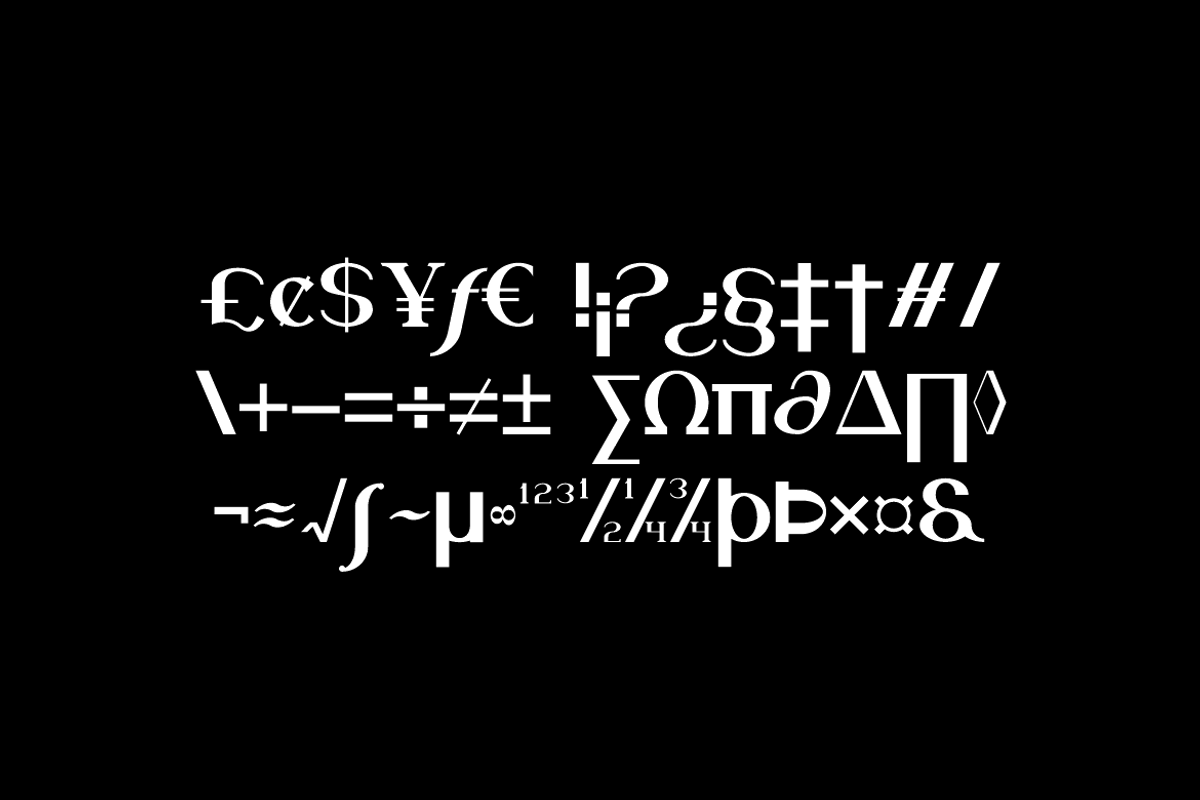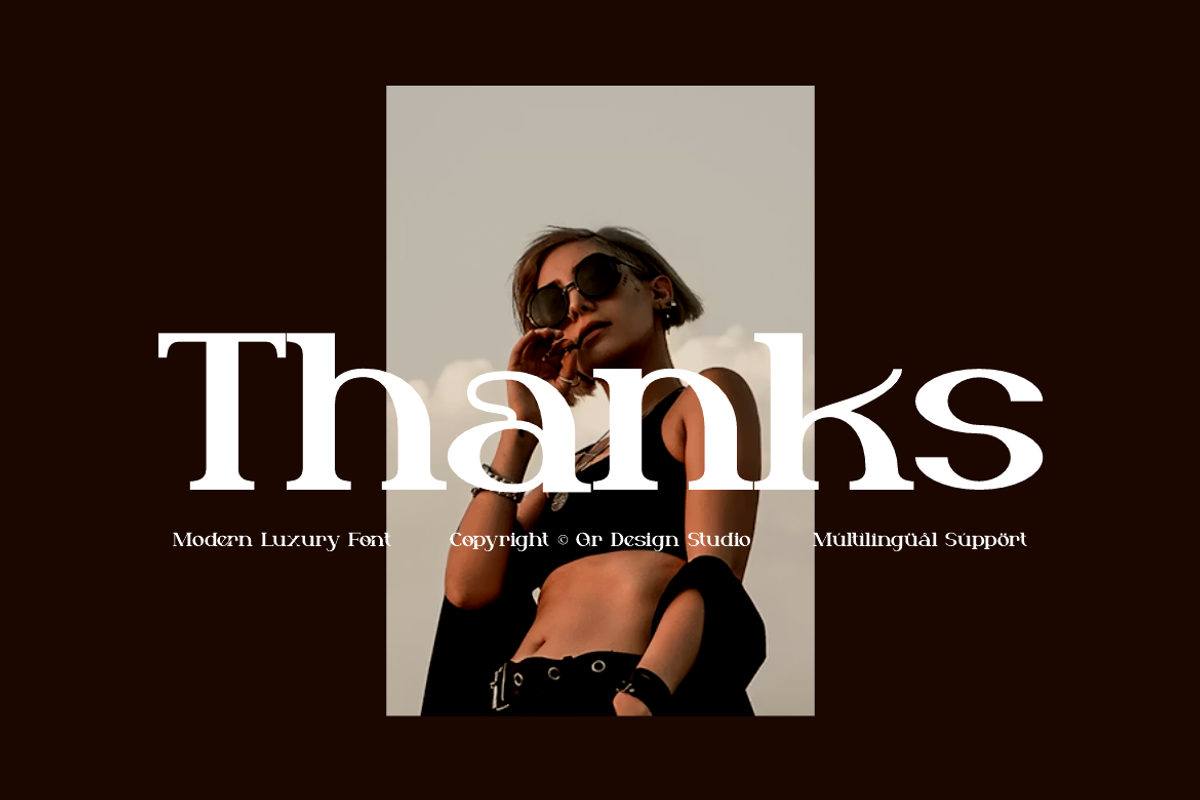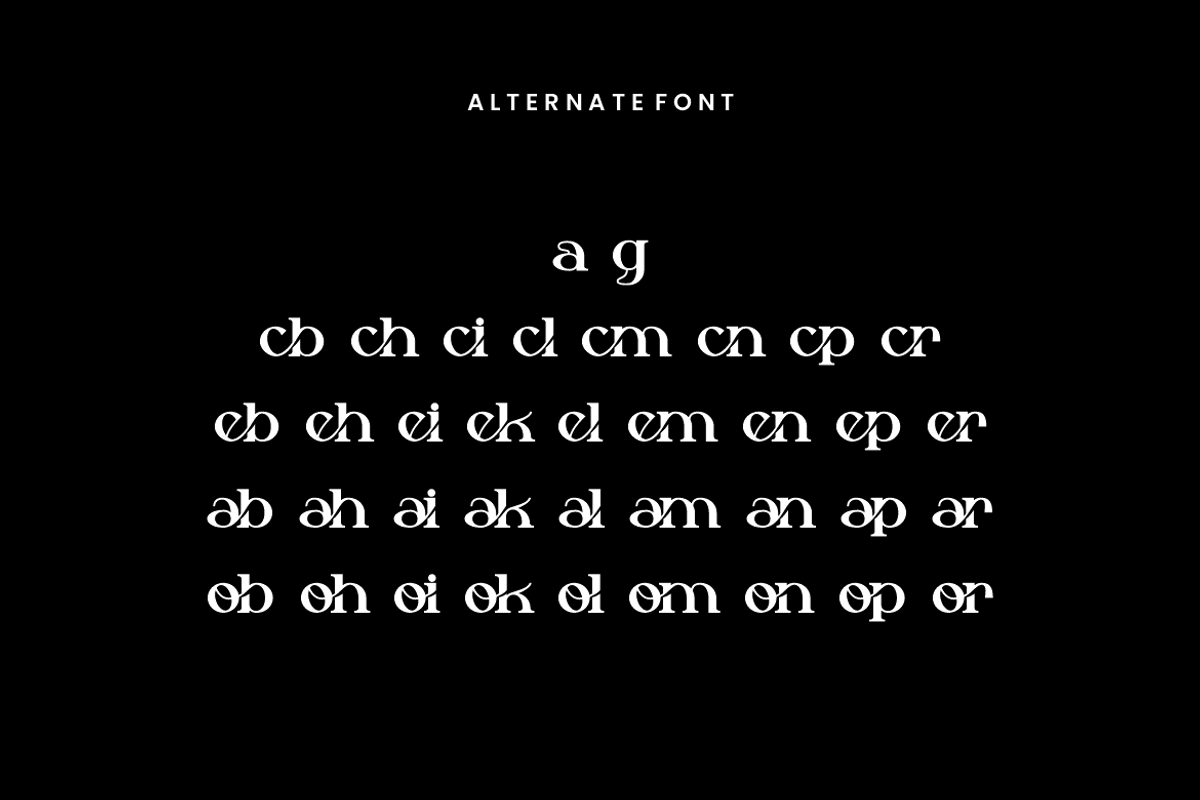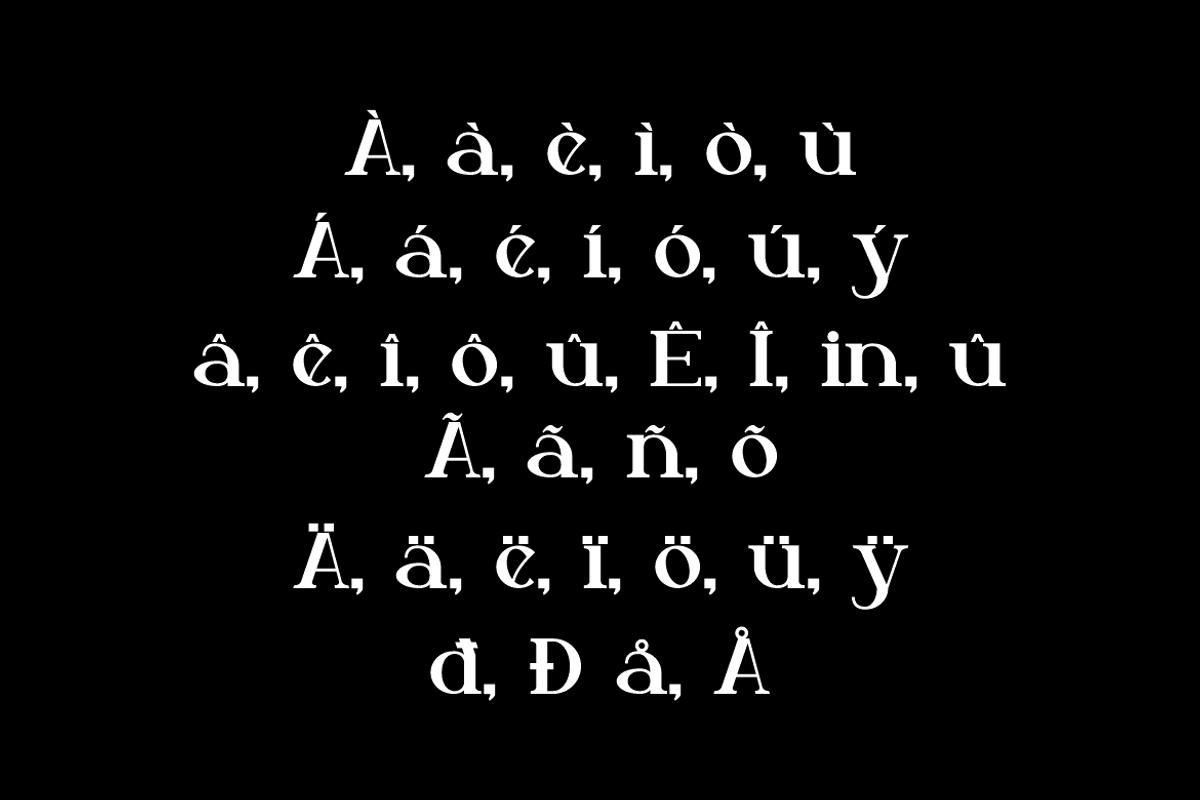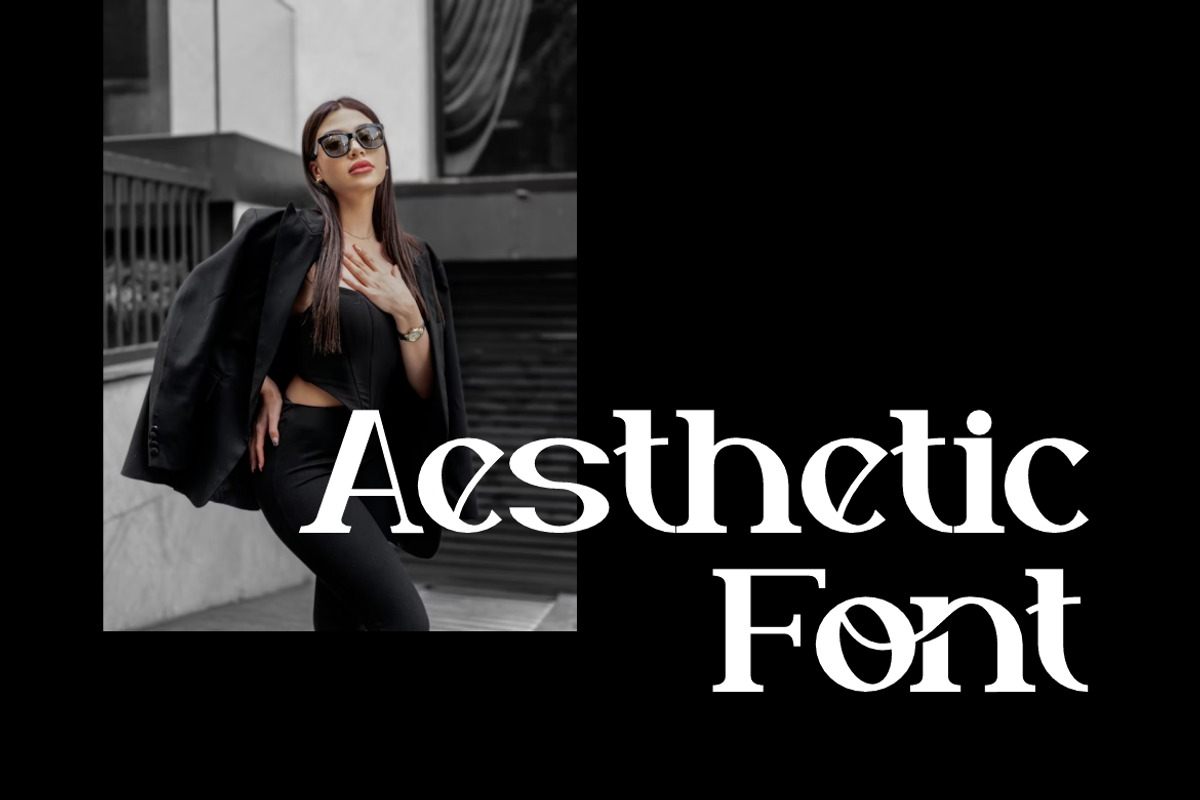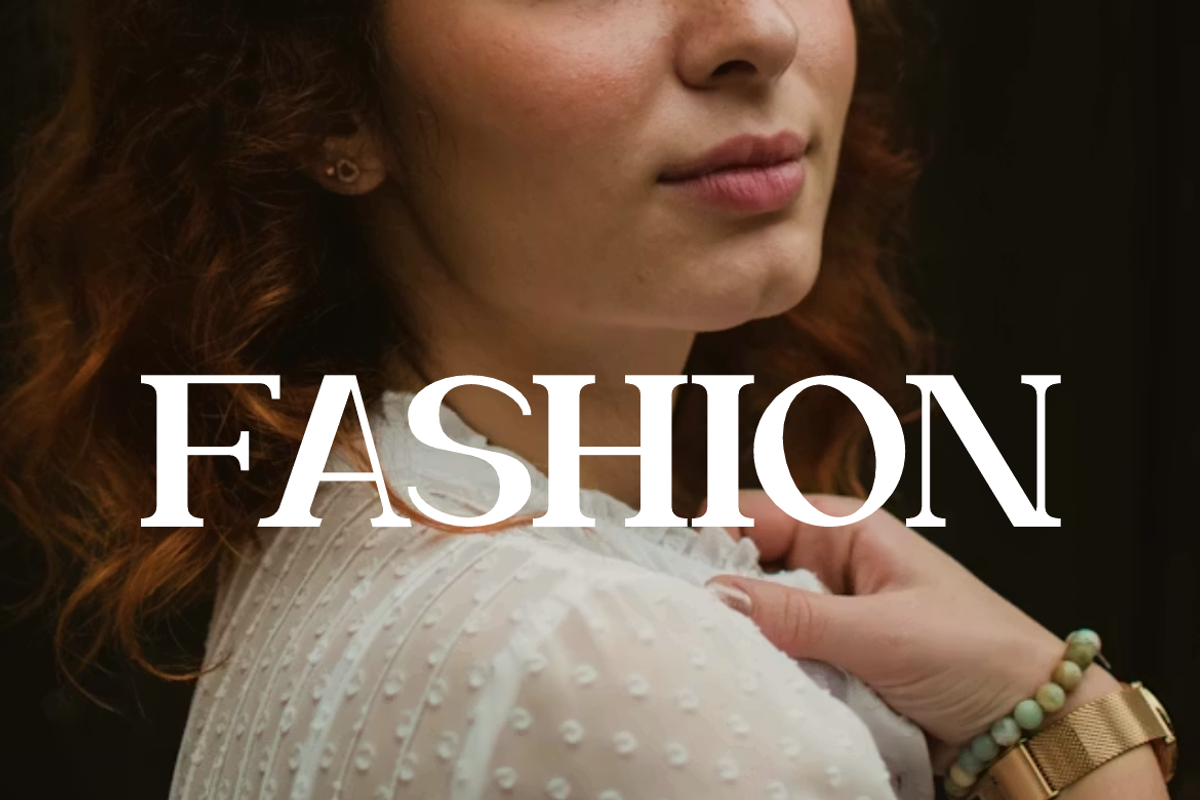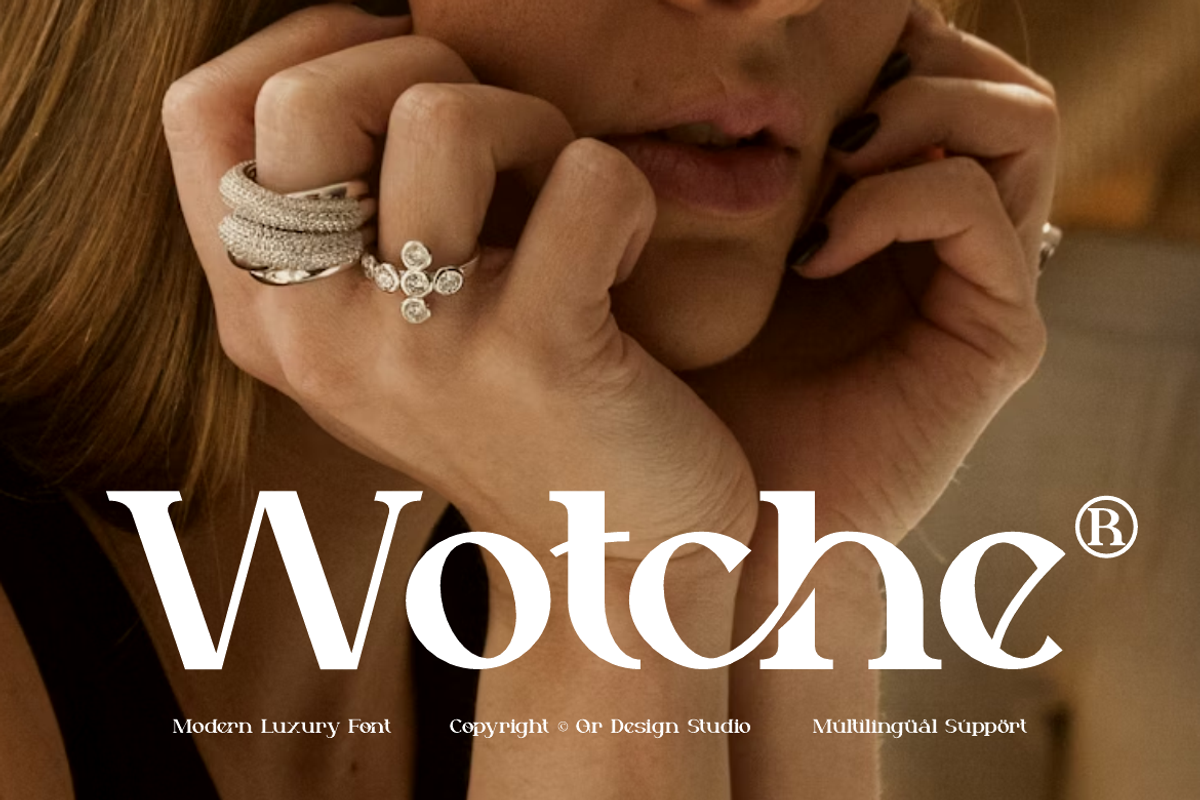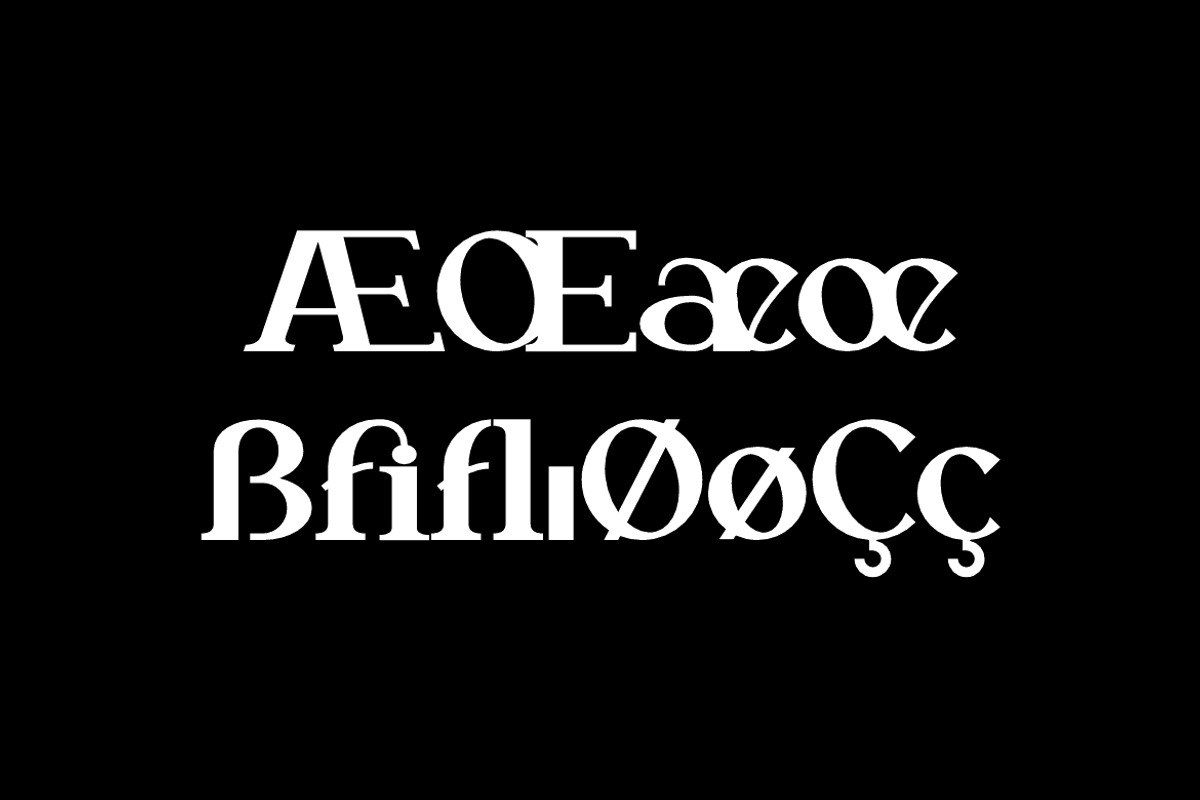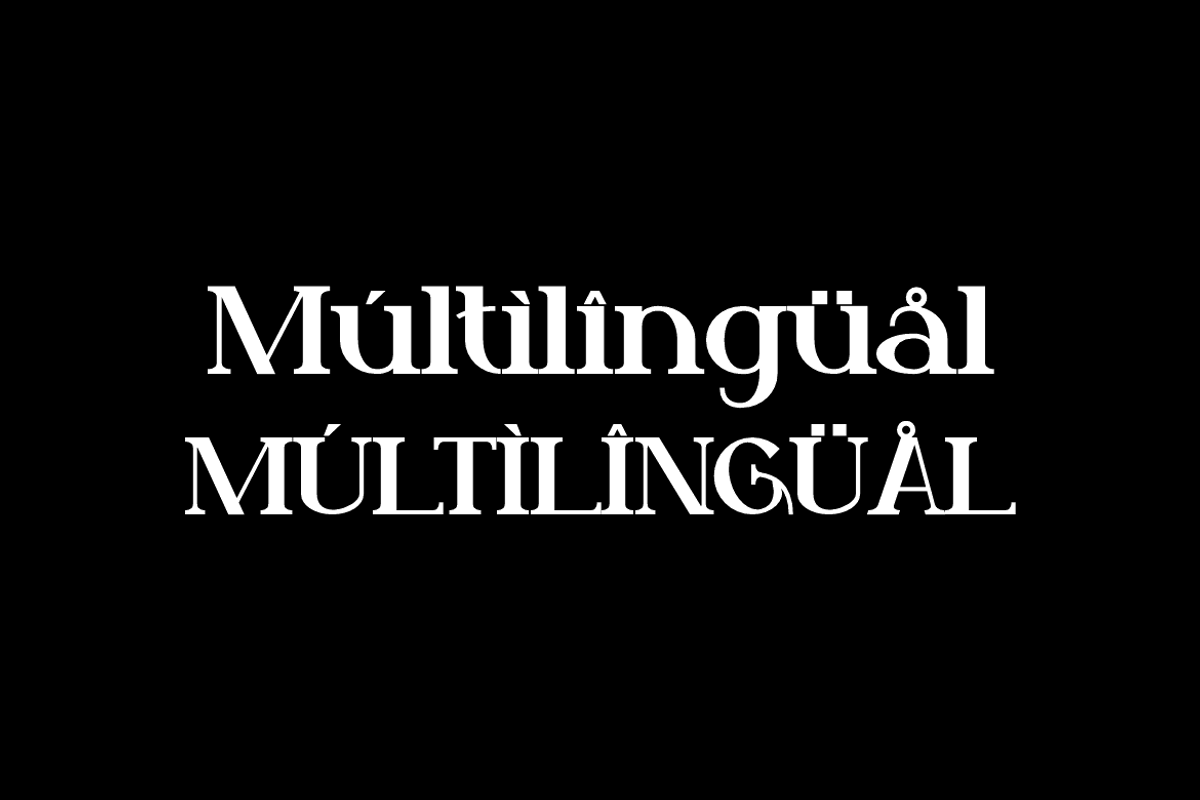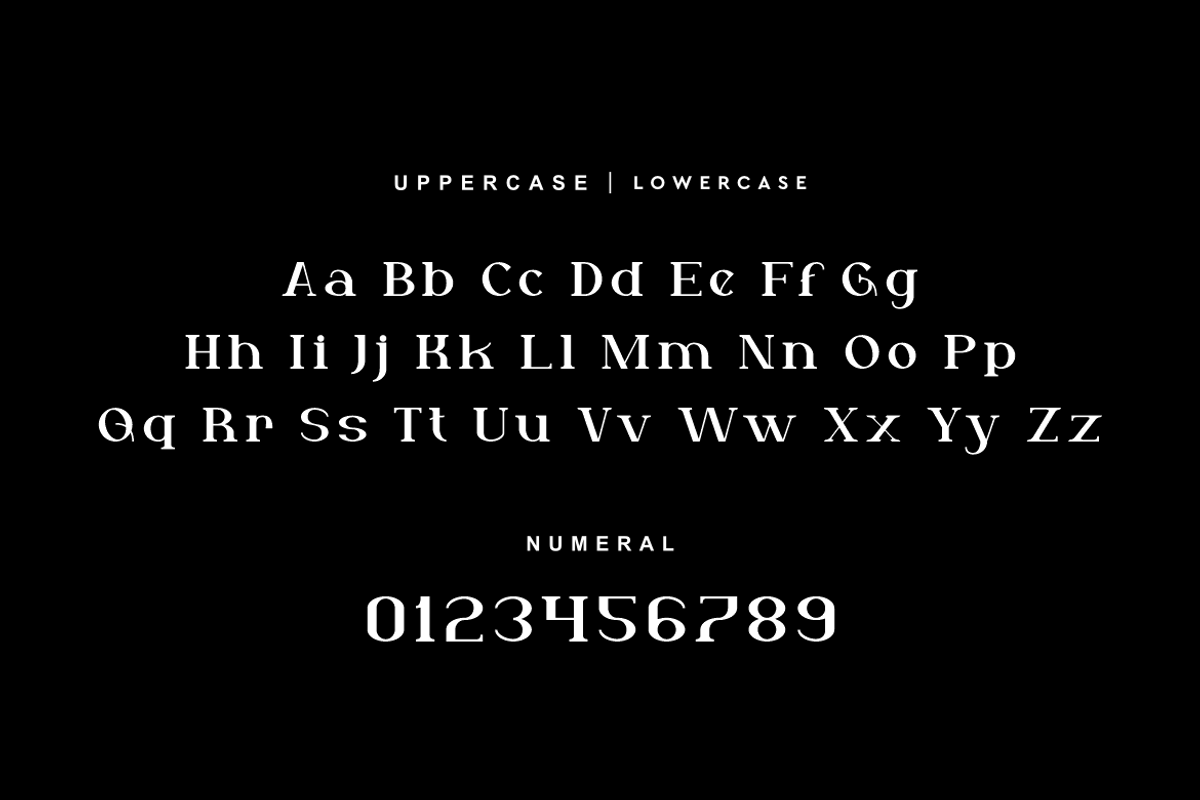
Wotche - Modern Fashion Font
Wotche Font is a serif and authentic display typeface. It’s perfect for various branding projects such as logos, modern designs, and more. This font stands out beautifully in a wide range of contexts.
Multilinugal Support